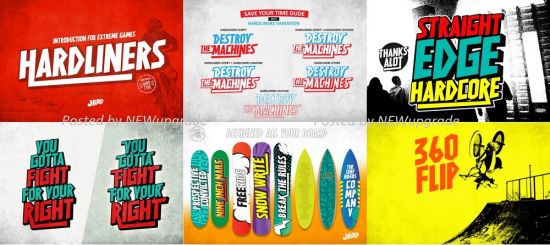
DesignOptimal - Hardliners Font
DesignOptimal.com - Hardliners Font
Hardliners is a bold display font, which celebrates abstract shapes in all their eclectic beauty. This font will look truly outstanding in a wide range of contexts.